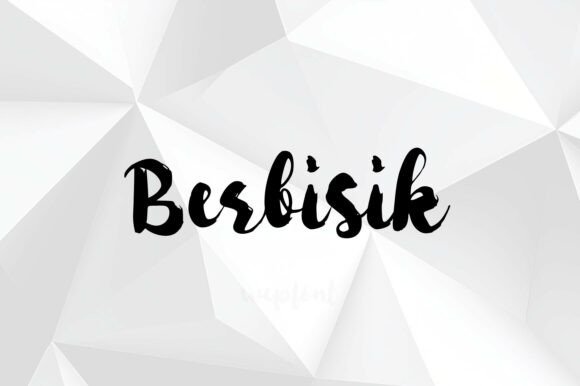
Unleashing Creative Potential with Berbisik Font
I’ll never forget the time I was working on a fashion brand’s social media campaign, and I was struggling to find the perfect font to capture their bold and lively personality. The client wanted something that would make their graphics stand out, but I was stuck in a design rut. That’s when I stumbled upon the “Berbisik” typeface, and it completely transformed my design. In this article, I’ll share my experience with Berbisik, its unique features, and how to make the most of this stunning font.
A First Impression: What Makes Berbisik Special
Exuding a bold and lively charm, Berbisik captures the thrilling essence of brush script fonts. Its dynamic strokes dramatically curl and sweep, demanding attention and injecting life into any creation. This comprehensive font includes a full suite of standard punctuation glyphs, yielding powerful and balanced visual communication.
My Honest Review of Berbisik
Here’s what I love about Berbisik:
- ✨ Dynamic and expressive strokes: Berbisik’s brush script style adds a touch of elegance and sophistication to any design.
- ✅ Comprehensive glyph set: The font includes a wide range of standard punctuation glyphs, making it versatile for various design projects.
- 🌈 Vibrant aesthetic: Berbisik’s modern and vivid design makes it perfect for fashion, lifestyle, and creative brands.
As for quirks or limitations, I’ve noticed:
- 🤔 Some letters may require manual kerning: Depending on the design software, some letters might need manual kerning to achieve optimal spacing.
- ⚠️ Not suitable for body text: Berbisik’s bold and expressive style makes it better suited for headlines and titles rather than body text.
The Story Behind Berbisik
Berbisik was designed with the intention of capturing the essence of brush script fonts. The designer’s inspiration came from the world of fashion and art, where bold and expressive typography is key. With Berbisik, the goal was to create a font that would add a touch of elegance and sophistication to any design.
| Font Name | Berbisik Font |
| Author | wep – Wahyu Eka Prasetya |
| What is Berbisik font best suited for? | Berbisik is perfect for designs that require a bold and lively touch, such as fashion brands, social media graphics, and high-end bespoke stationery. |
| Can I use Berbisik for body text? | No, Berbisik is better suited for headlines and titles due to its bold and expressive style. |